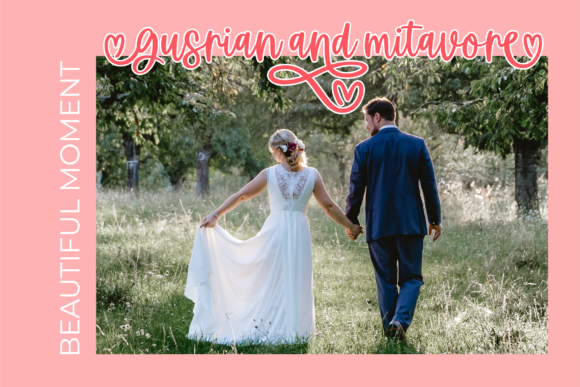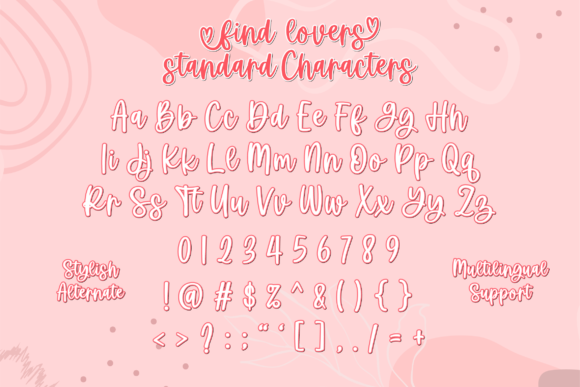
About Find Lovers Font
Find Lovers is a beautiful and lovely script font. It has a classy, elegant and modern look that can be used for logos, branding, invitations, stationery, wedding designs, social media posts, and much more!